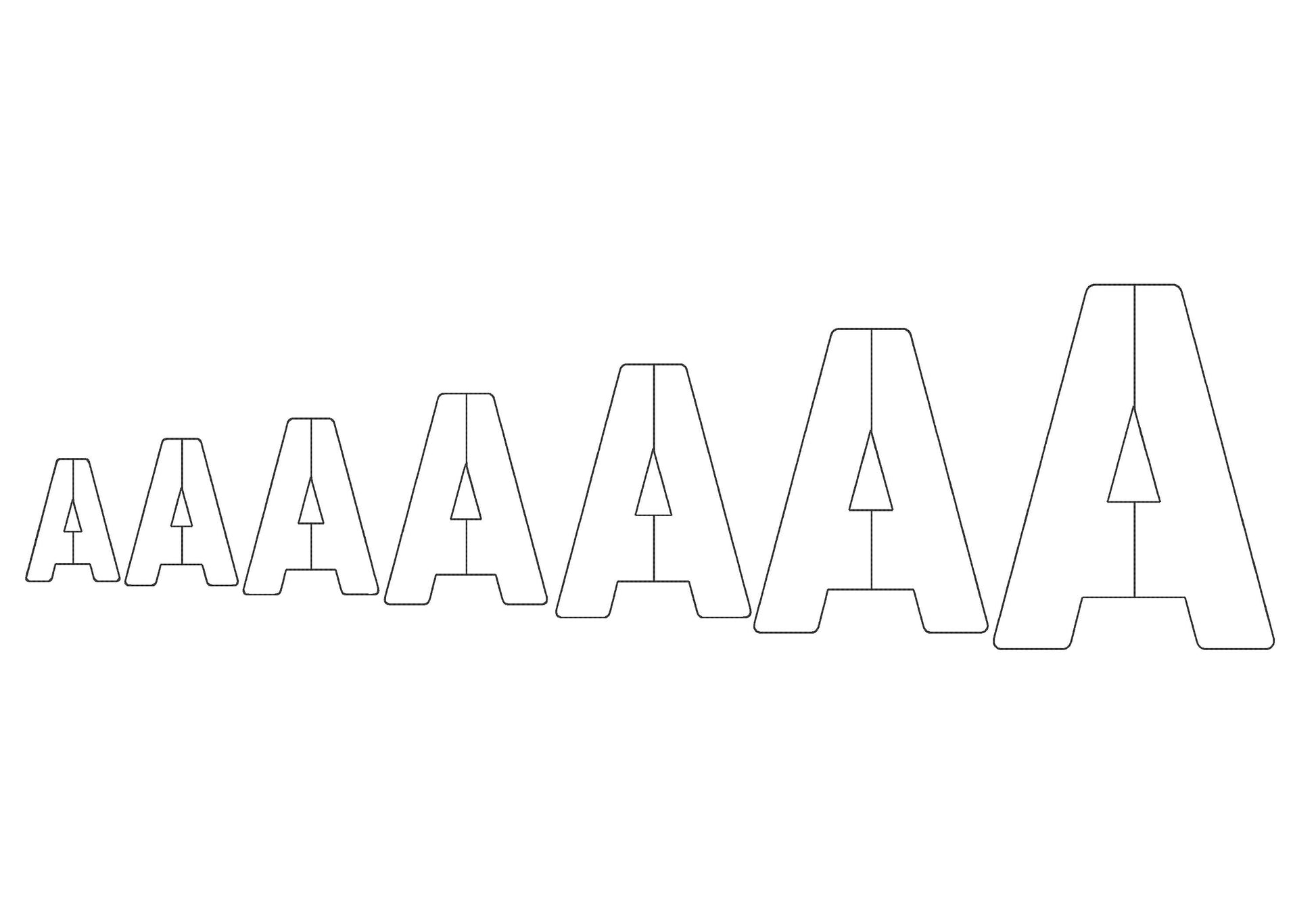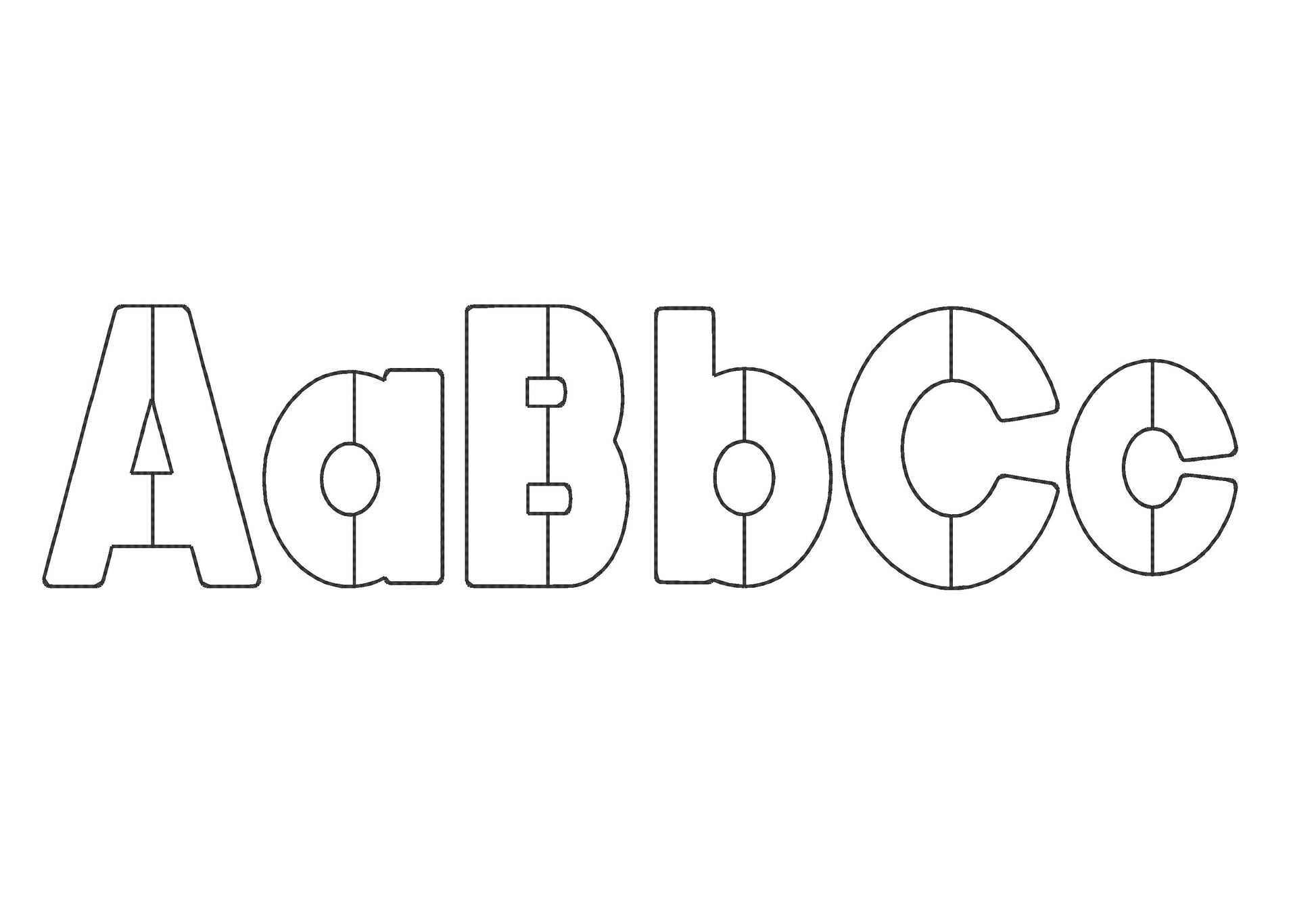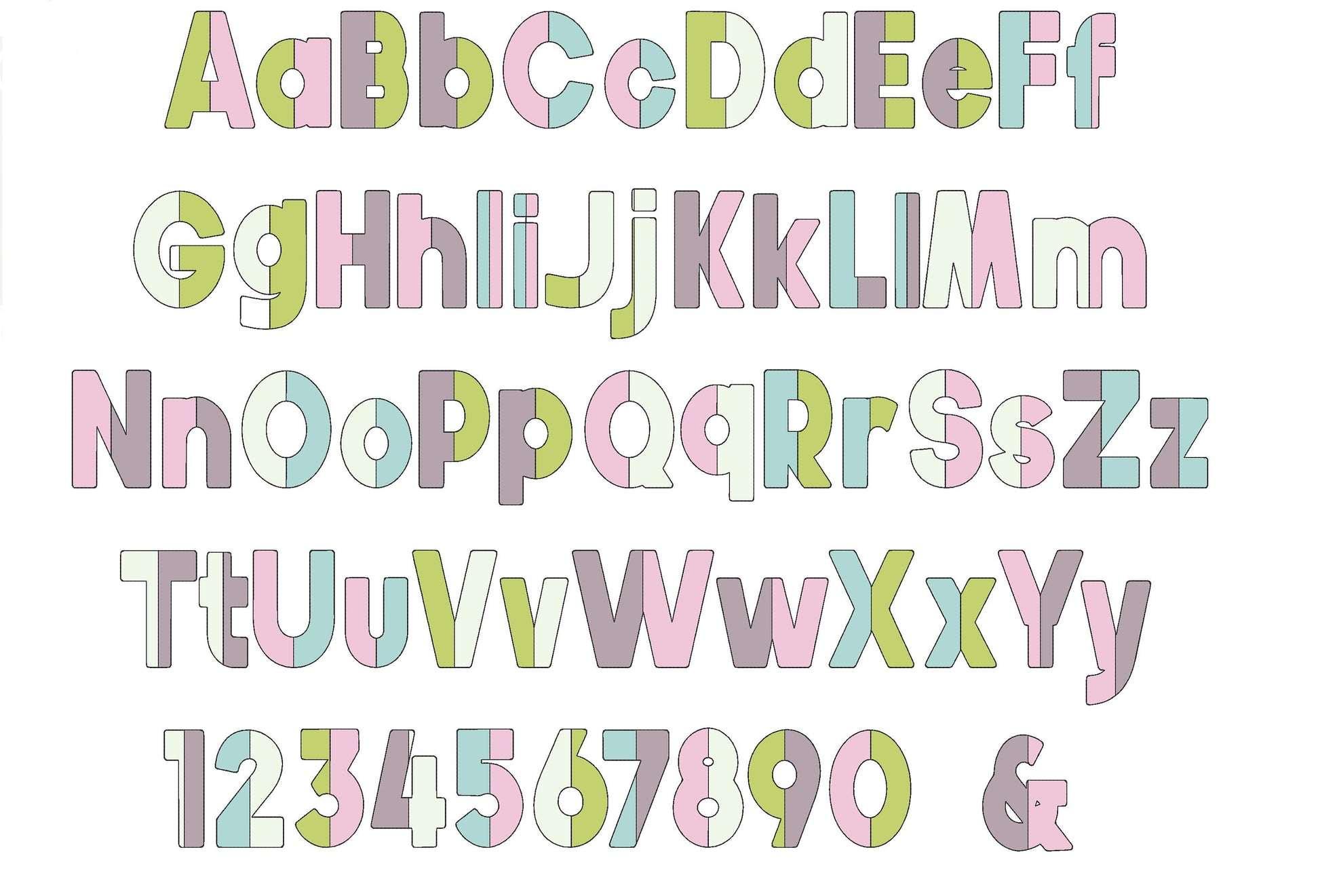
Vertical Raggedy Edge Font Applique
Sizes (inches): 2", 2.5", 3", 3.5", 4", 5", 6"
Or click to open the linkA light raggedy applique block font split vertically into two colors, with a bean stitch outline. Nice for patchwork-style names, monograms and quilts.
The letters come in seven sizes: 2, 2.5, 3, 3.5, 4, 5 and 6 inches. Each letter is split top to bottom into two applique parts with open, raggedy edges and a bean stitch outline. Includes uppercase letters A to Z, numbers 0 to 9 and an ampersand.
- Vertical split raggedy applique block font
- Uppercase A to Z, numbers 0 to 9, ampersand
- 7 sizes, 2 to 6 in